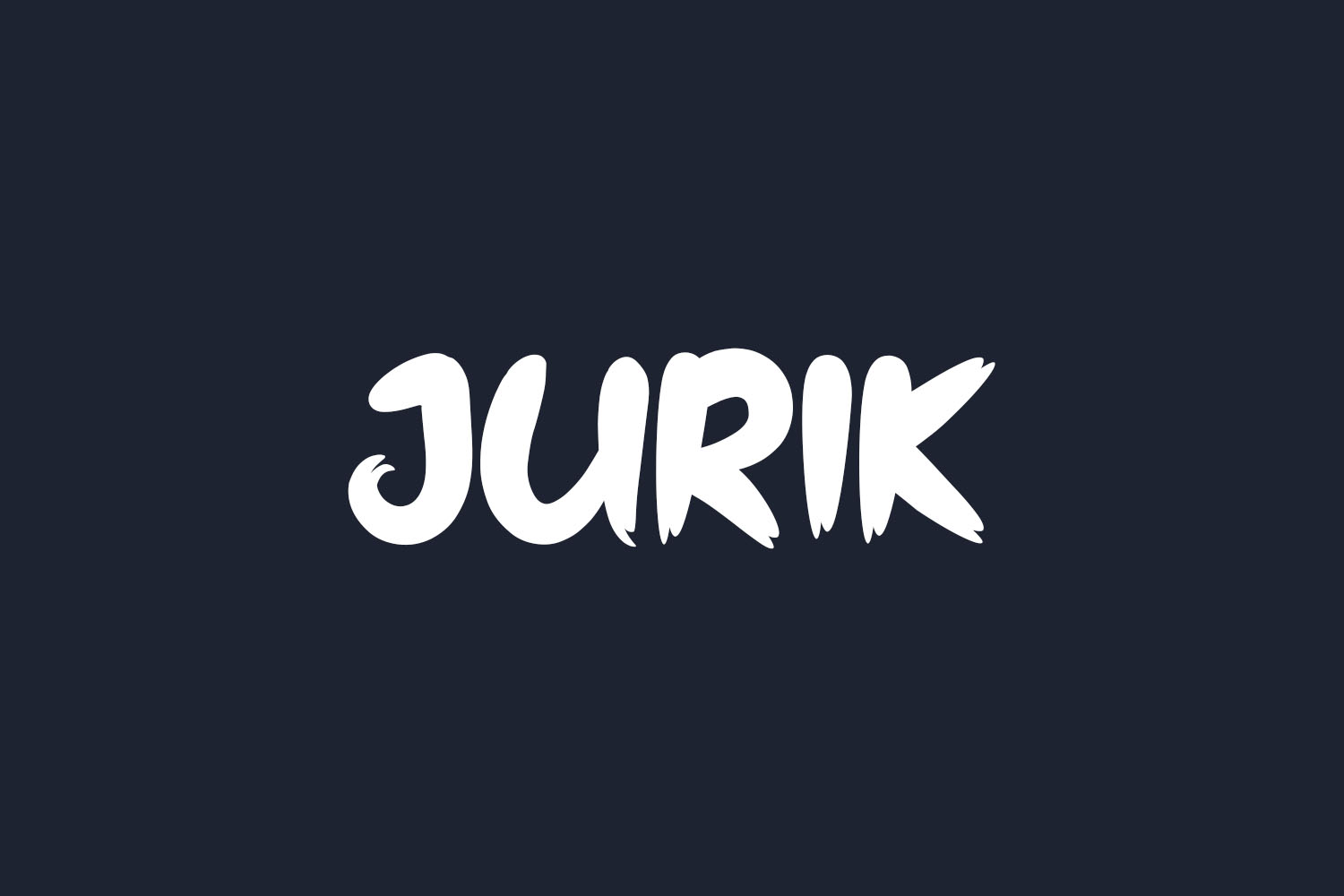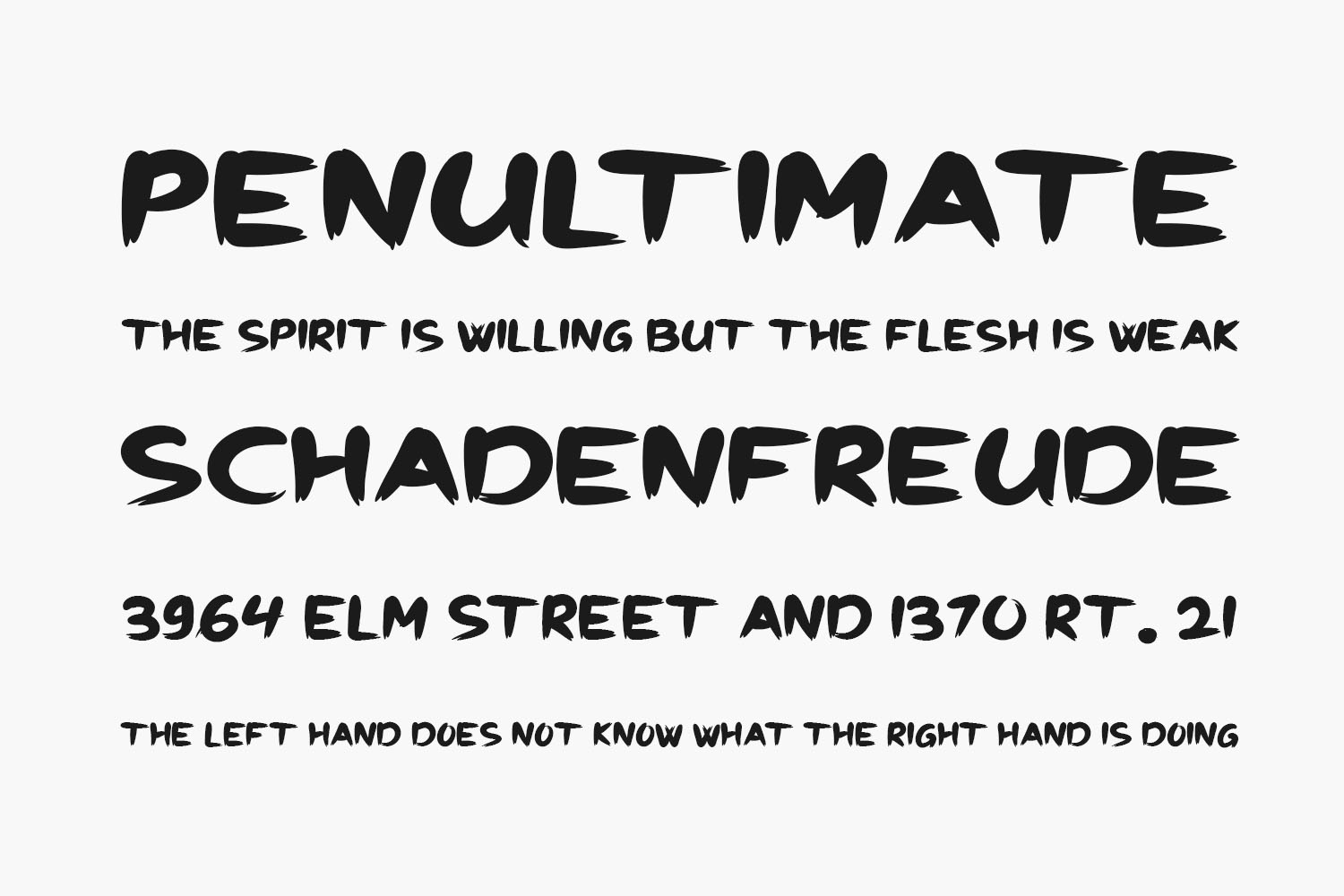
Jurik Free Font is a cool brushed display font. No matter the topic, this font will be an incredible asset to your fonts’ library, as it has the potential to elevate any creation. Jurik Free Font was designed by Sambogo Creative and is free for personal use only. Please purchase the full version for commercial use.